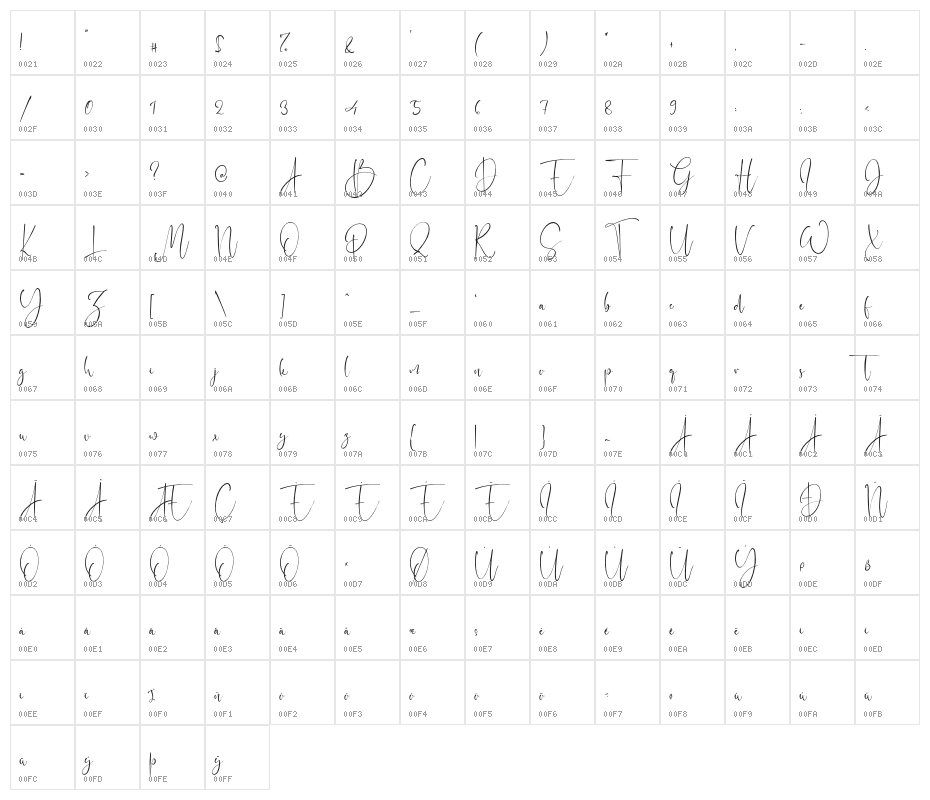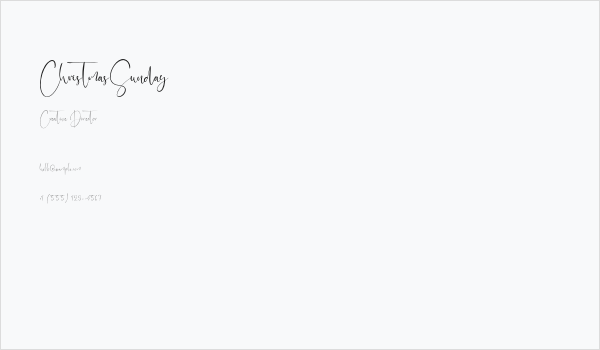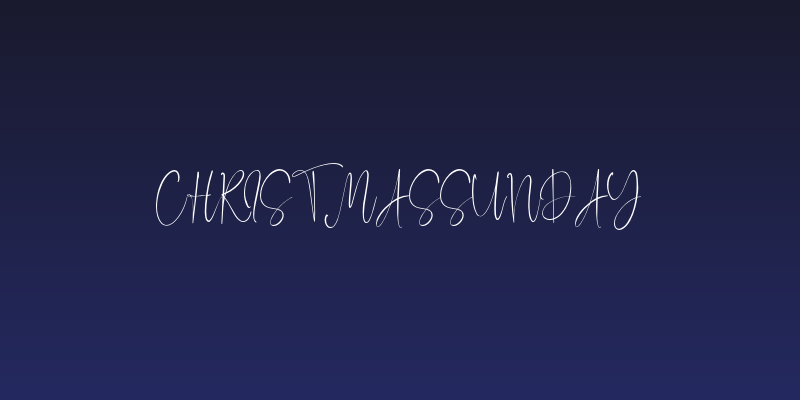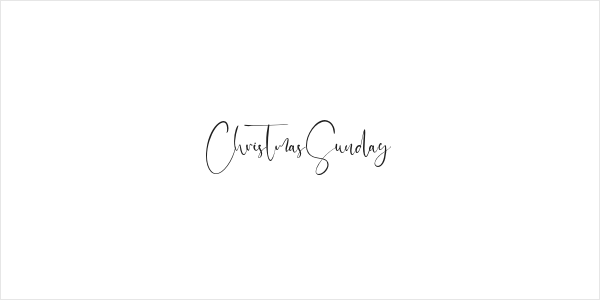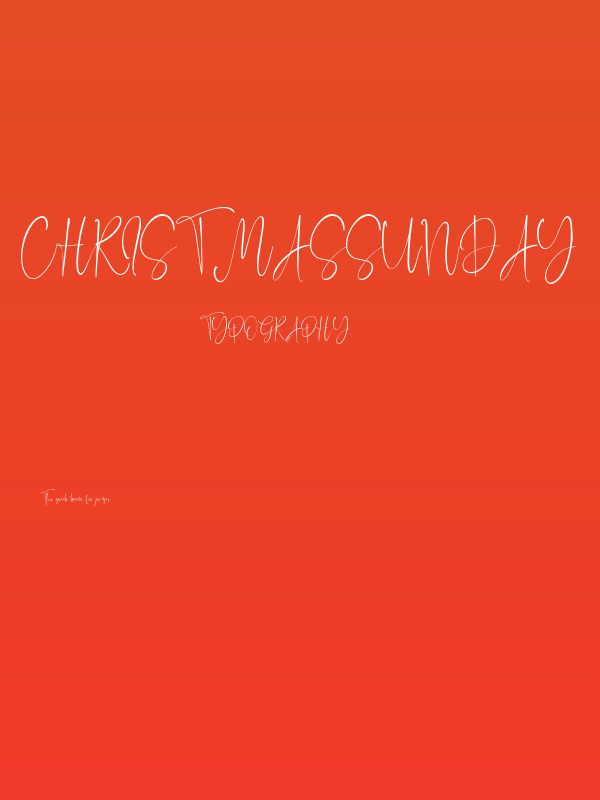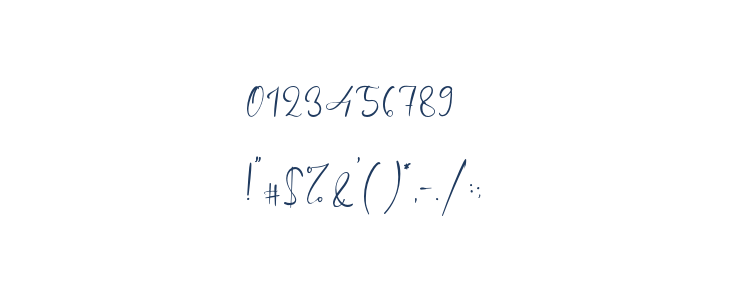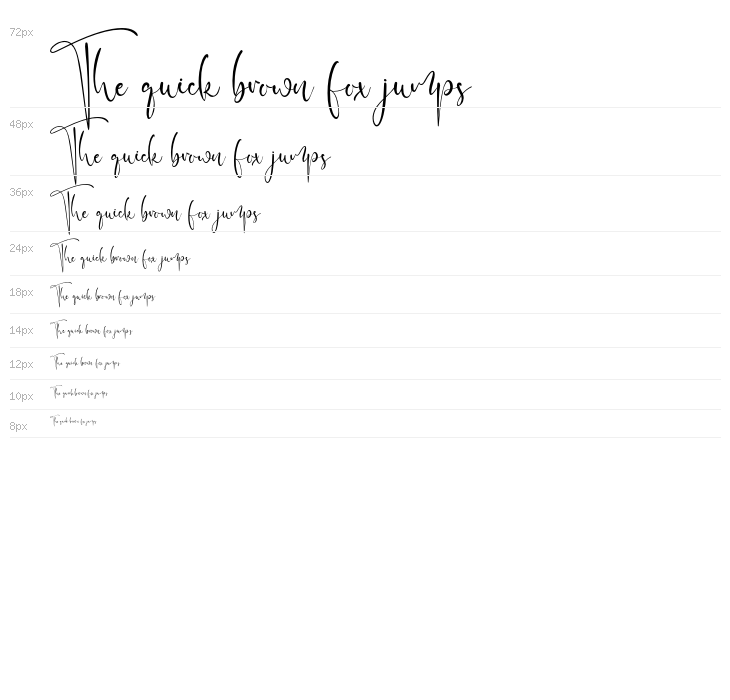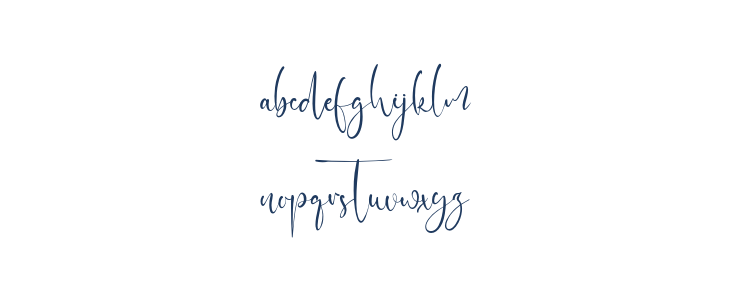
ChristmasSunday Font
ChristmasSunday Description
This font features an elegant, flowing script style with a handwritten appearance. The characters are connected with smooth, sweeping lines that give it a whimsical and artistic feel. The uppercase letters are tall and slender, with exaggerated loops and flourishes that add a touch of sophistication. The lowercase letters maintain the same fluidity, with some characters extending below the baseline, enhancing its graceful aesthetic. The numbers and special characters are consistent with the overall style, maintaining the same delicate and intricate design. This font is perfect for adding a personal and creative touch to any project.